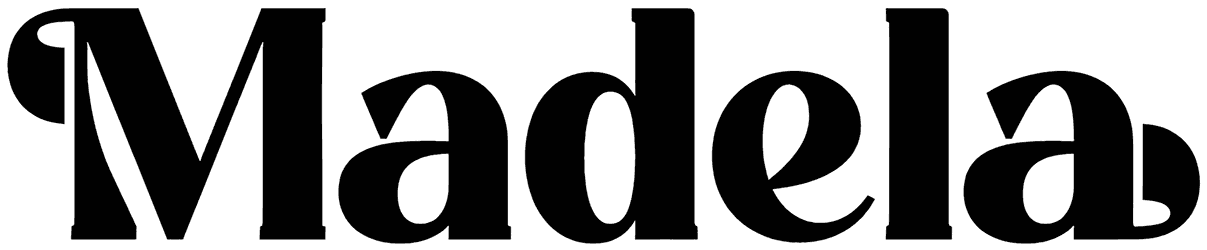
Madela Font
Madela is for designers who are interested in standard and classic writing, who want to prioritize legibility anywhere, and at the same time look classy.
This fashion font can look bright on book covers, official posters, packaging, and websites, and bring you to the point you have always wanted. This classic font lets you implement your mental ideas on any desired background and always ranks high.